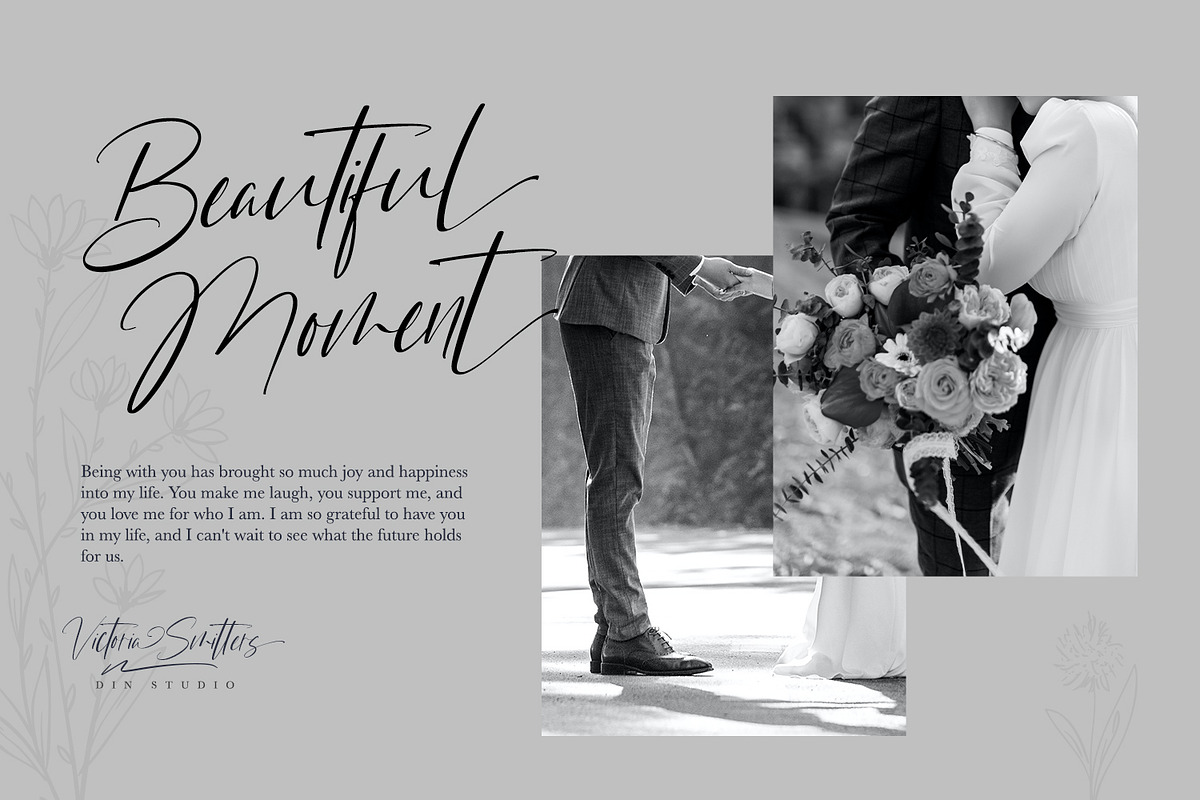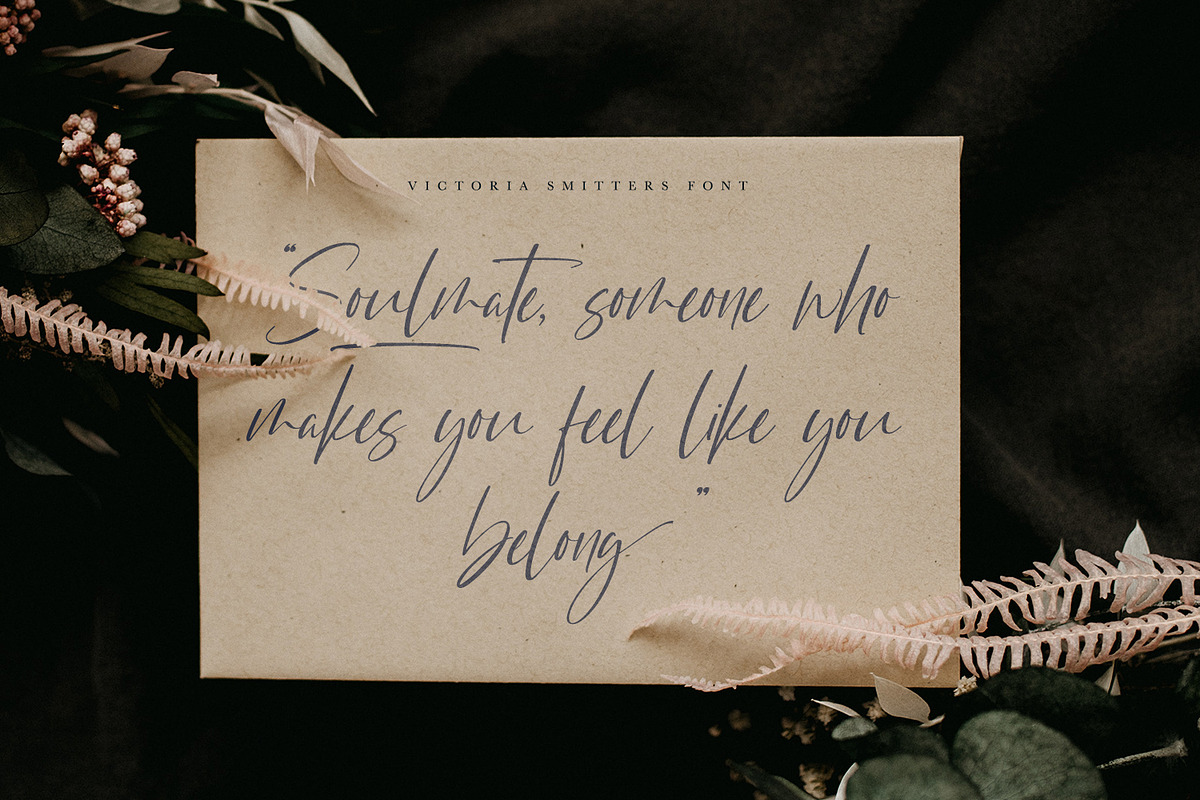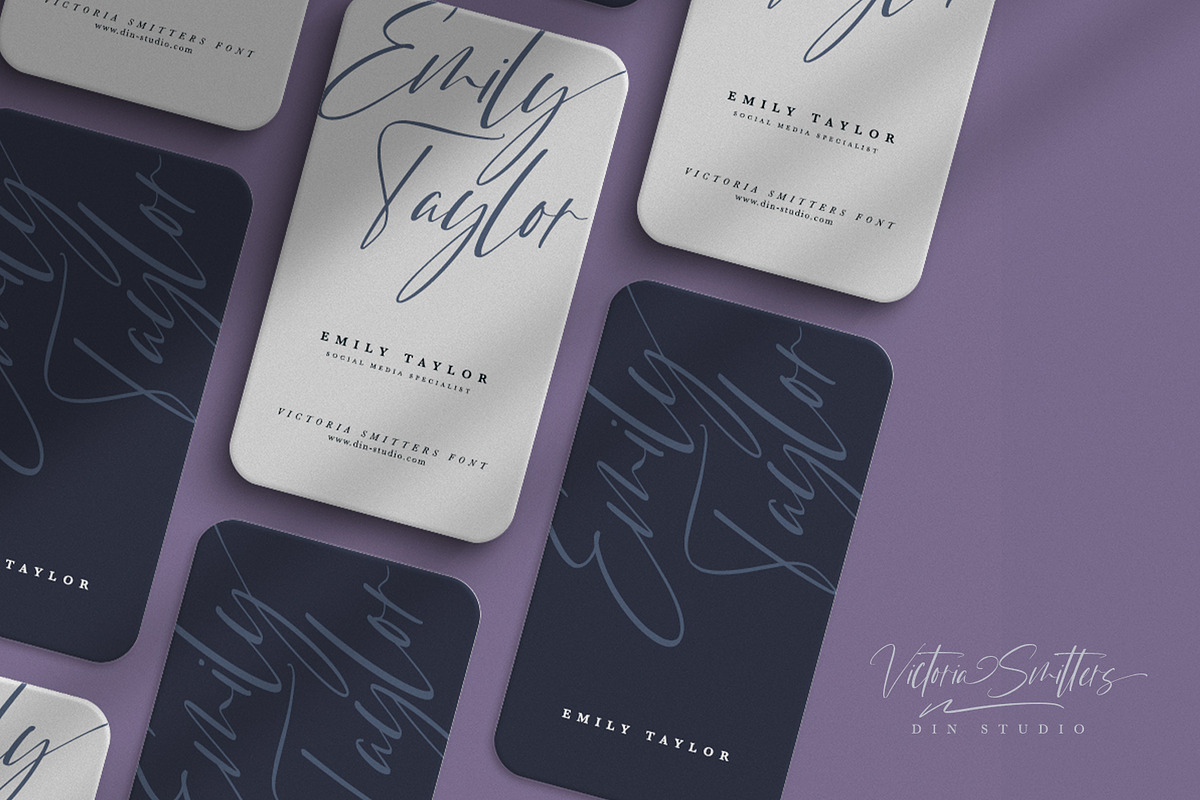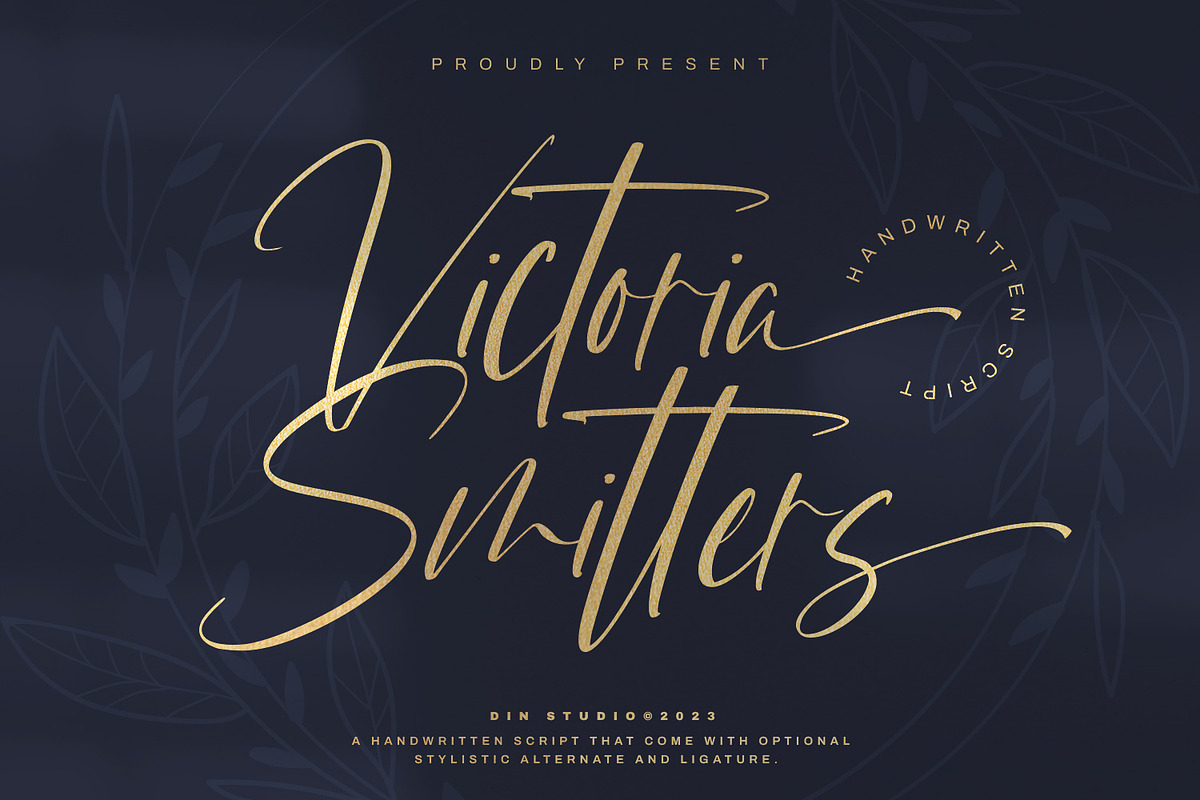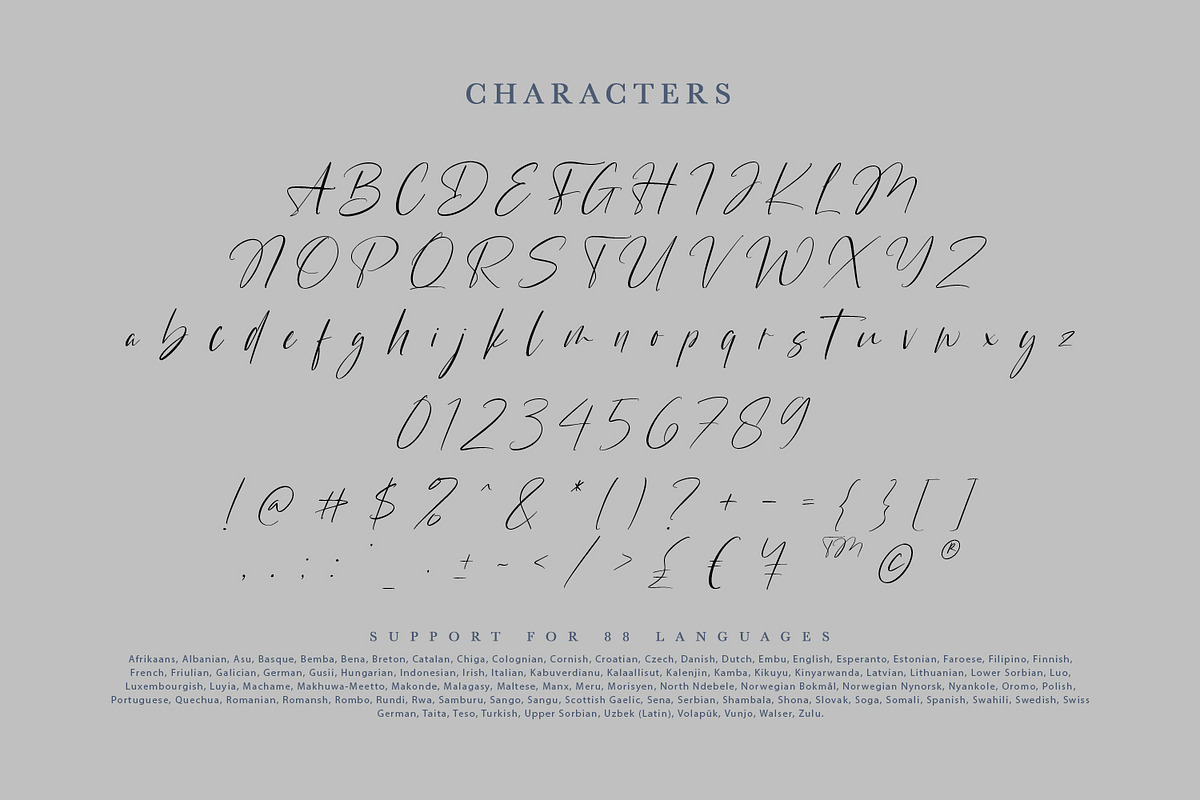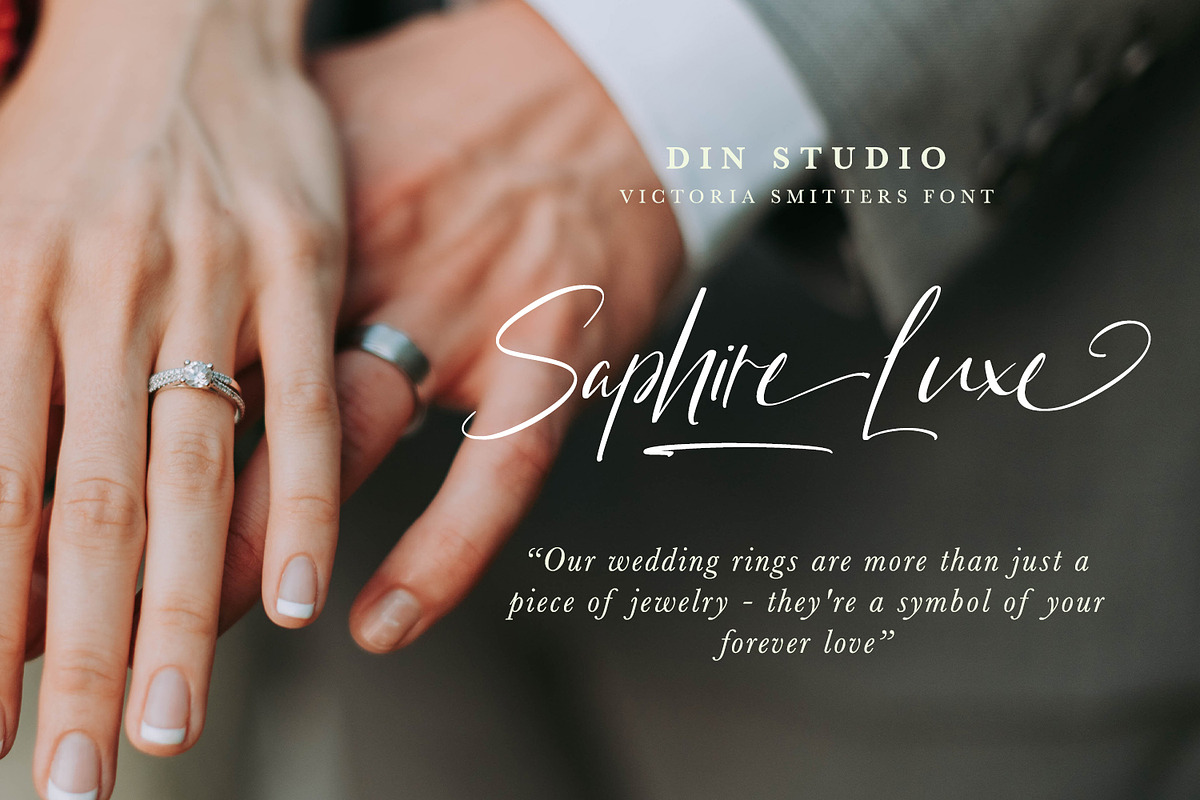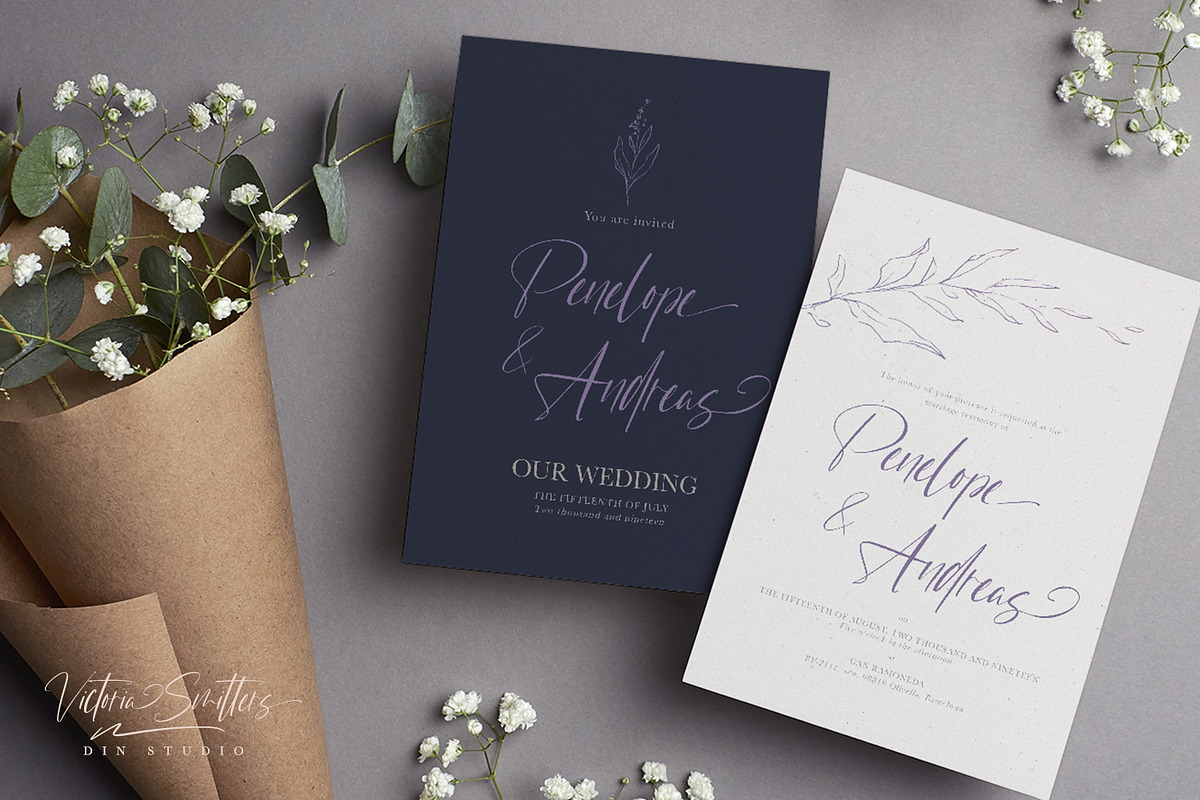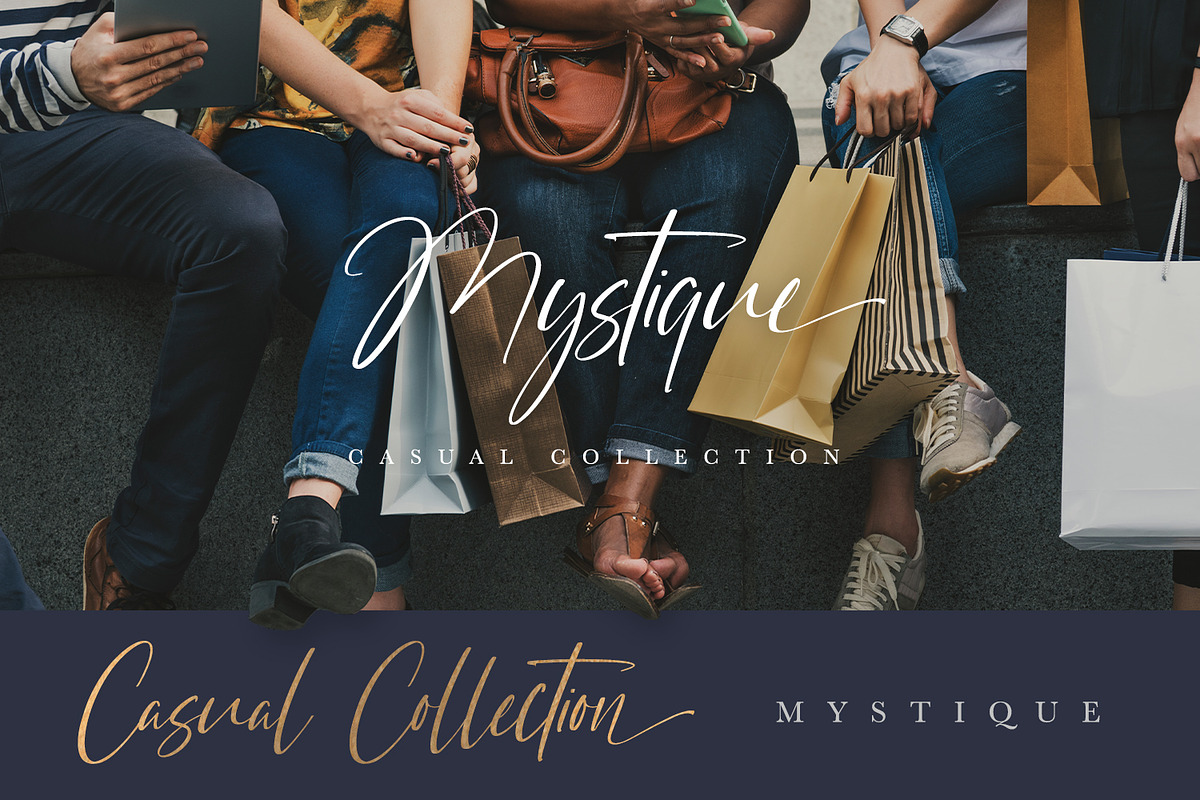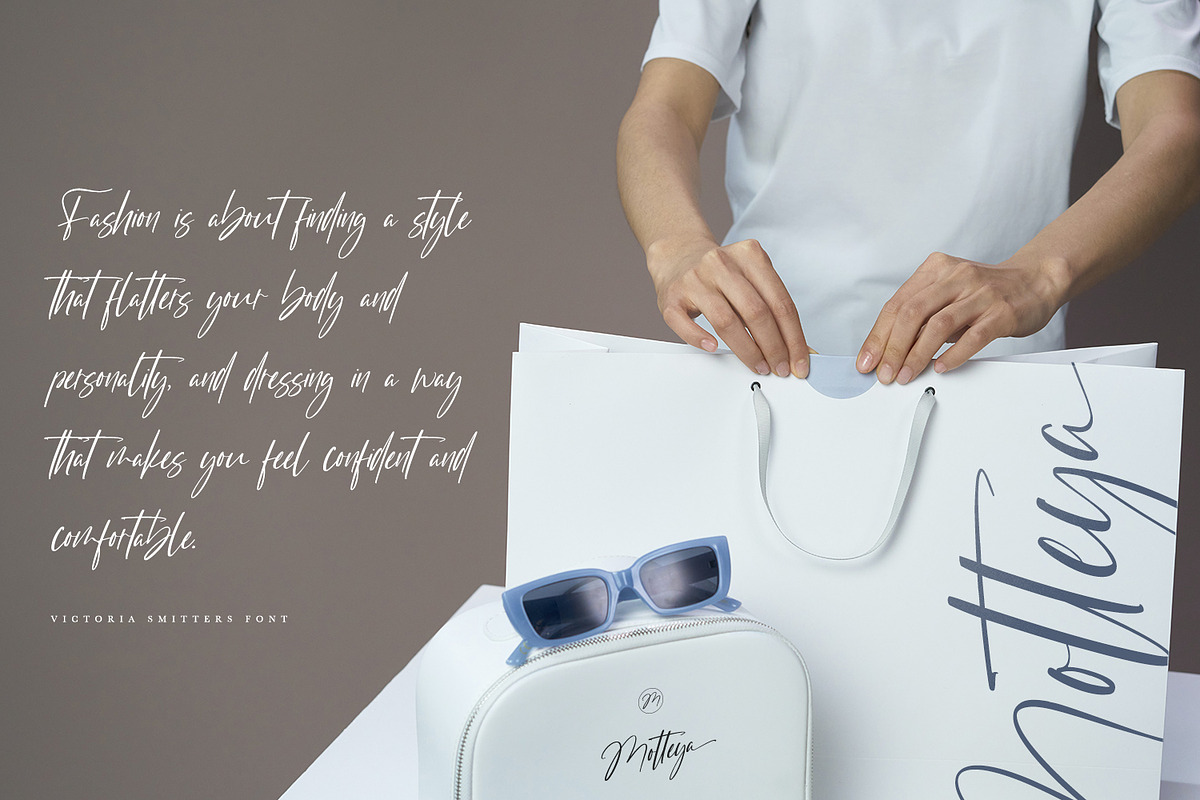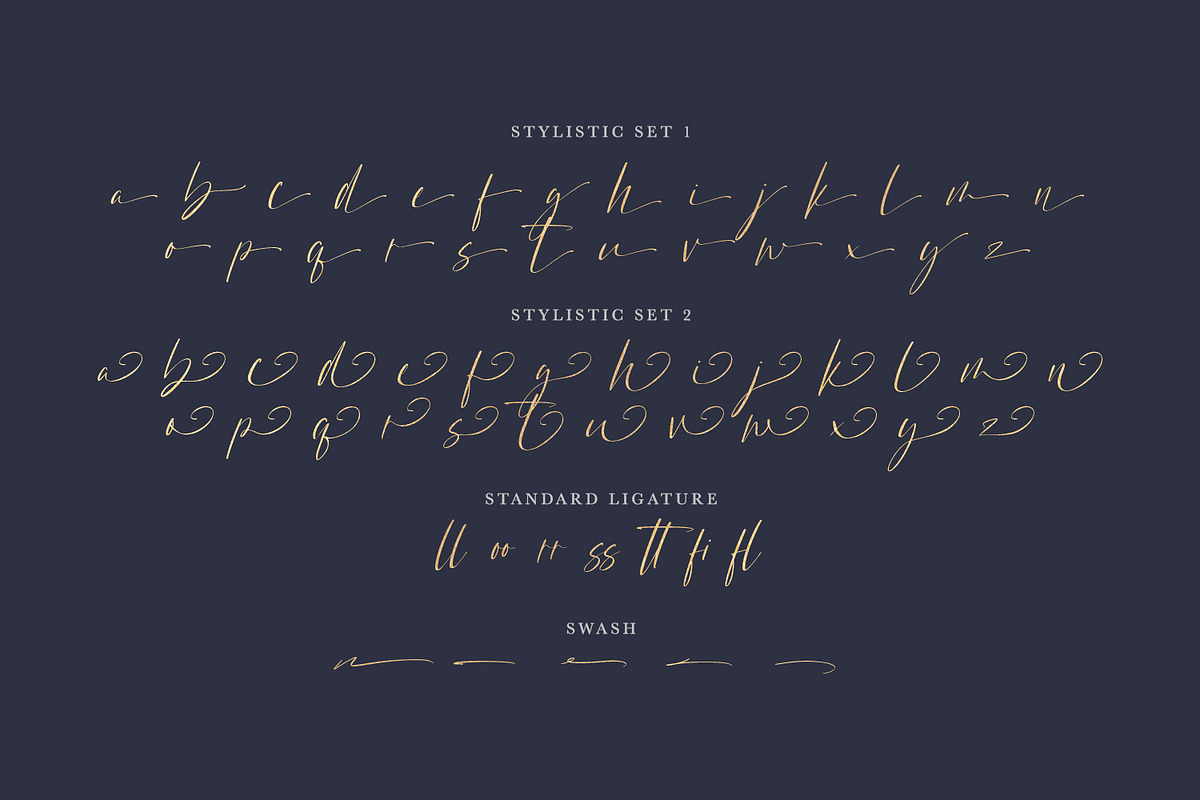
Victoria Smitters
It is critical to ensure that your design appearance represents the messages you deliver. However, it can be such a difficult task and time wasting to create a personal, lovely design. Therefore, Victoria Smitter is the answer to what you need.
Victoria Smitters is a visually beautiful handwriting font which is perfect to show modern, elegant impressions in a personalized design to impress your customers and to make your messages more prominent than the others. It is designed in a cursive way in which the letters are connected to each other. Details on each letter and cursive wipes on the edges show high contrasts. Furthermore, this font is suitably applicable for big text sizes for better legibility. In addition, you can enjoy the available features here.
- Stylistic Sets
Victoria Smitters fits best for various design projects, such as brandings, posters, banners, invitations, greeting cards, magazine covers, quotes, printed products, merchandise, social media, etc. Find out more ways to use this font by taking a look at the font preview.